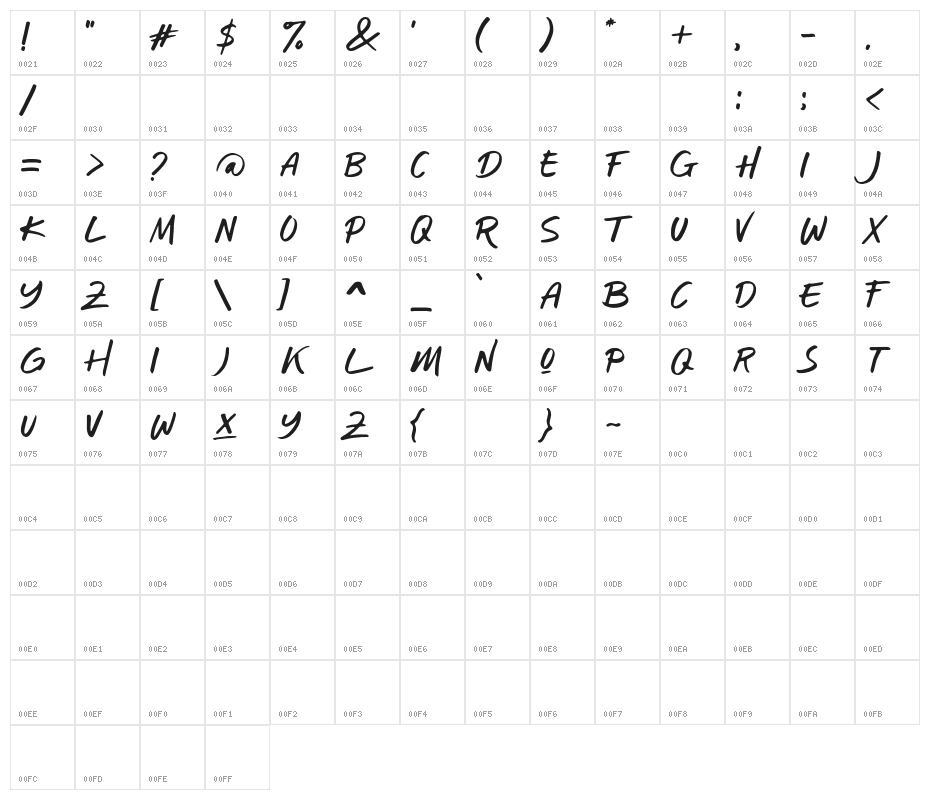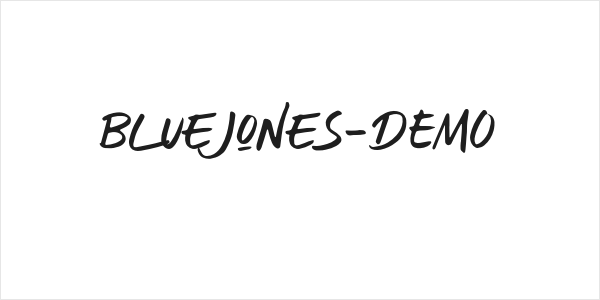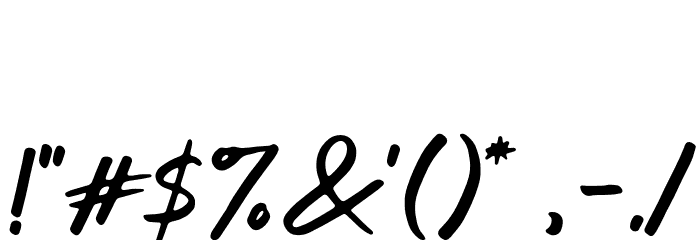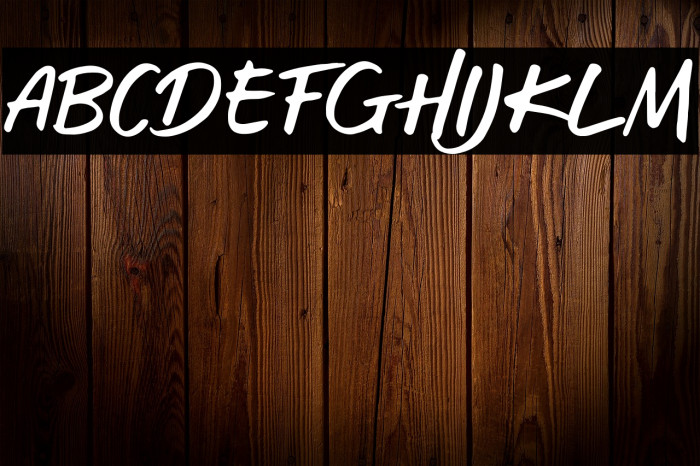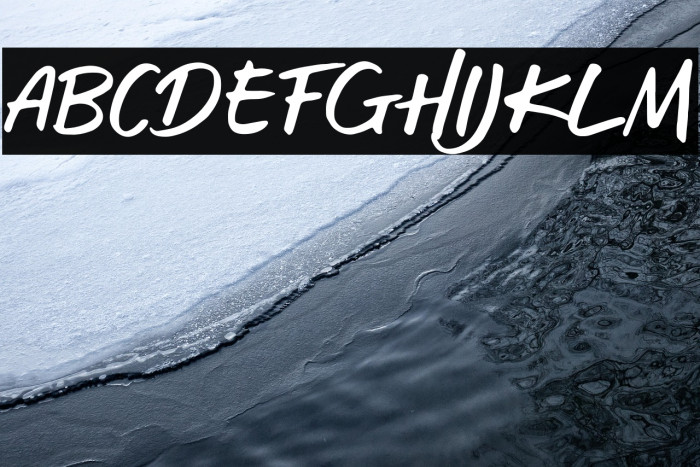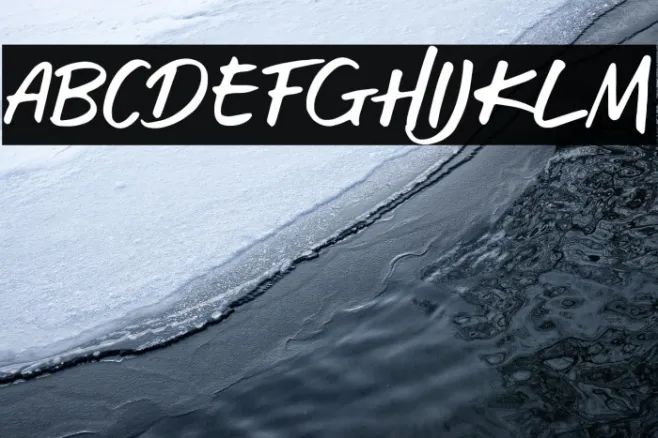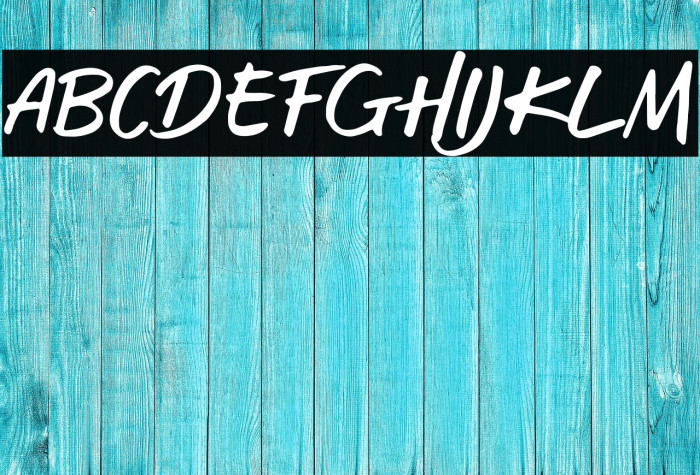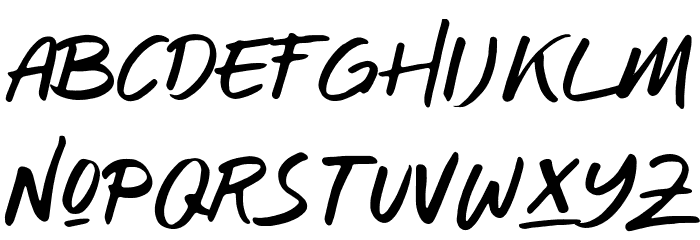
BlueJones-DEMO Font
BlueJones-DEMO Description
This font features a dynamic and energetic handwritten style, characterized by its fluid strokes and slightly slanted letters. The uppercase and lowercase letters maintain a consistent flow, giving it a casual yet sophisticated appearance. The characters are bold and have a medium contrast, with varying stroke widths that add to its lively feel. The special characters are integrated seamlessly, maintaining the overall aesthetic. This font is ideal for projects that require a personal touch, such as invitations, greeting cards, or branding materials that aim to convey a sense of approachability and creativity.
| Overall Style | Casual, Energetic |
| Proposed Projects | Ideal for invitations, greeting cards, branding, and creative projects. |